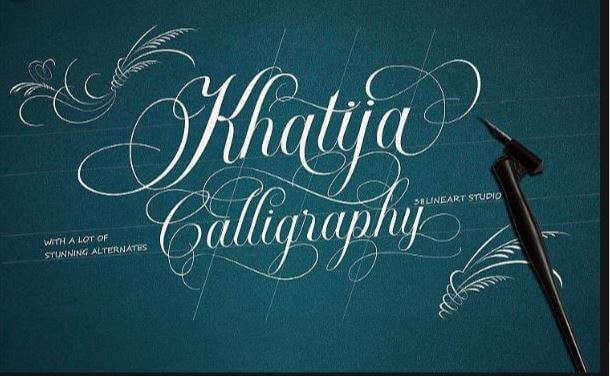
Khatija Calligraphy Font looks attractive, cute, elegant. A new idea to create a logo and brand and other craft needs. Khatija designed and shared by the cool-design lab.
It is a beautiful calligraphy font in the base style of penmanship with a modern look, an eclectic concept by paying attention to the beautiful choice models.